The theme of the 2025 Sandoll Saisiot: Type Conference was “Those Who Question.” We spent a long time considering how this idea could be translated into the event’s visual identity. After a lots of iterations, one symbol remained: the question mark. Shall we take a closer look at how we arrived there?
How Can Inquiry Be Visualized?
What does inquiry mean to you? To me, inquiry is both a concept and an act. The biggest challenge was finding the most intuitive way to visualize something that exists in both of these forms.
At first, I tried to visualize inquiry as something you dig into, experimenting with visuals inspired by digging. I also tested graphics built around objects commonly associated with inquiry, exploring as many directions as possible—including experiments with AI tools.
None of these attempts quite good. Then a simple sentence came to mind: every inquiry begins with a question. Inquiry ultimately lives in curiosity—in the impulse to wonder about something—and that felt like a line that cut straight through the theme of the event. From there, it became clear that the question mark could serve as a symbolic, intuitive representation of inquiry itself.
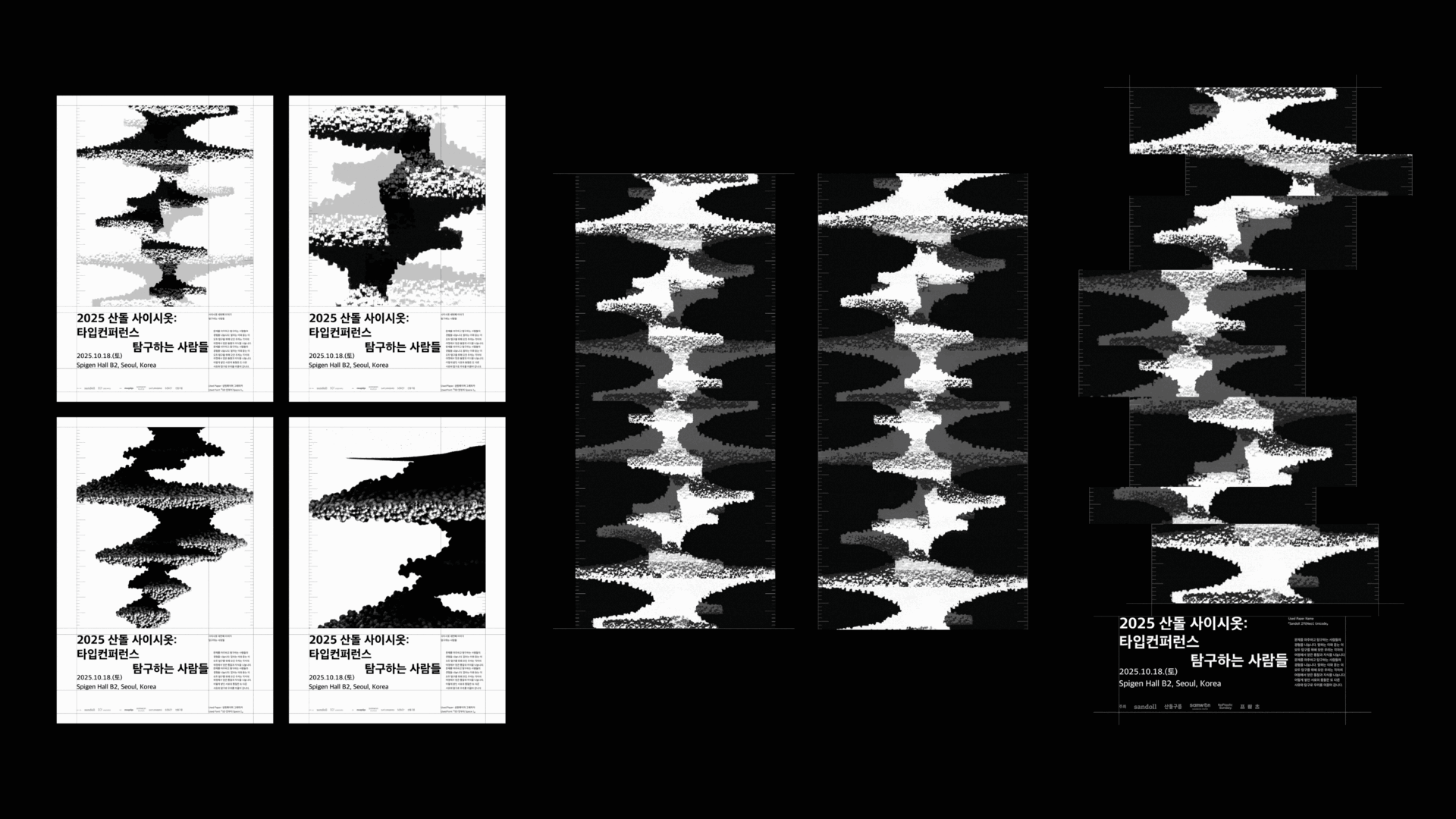
Then I started drawing a lot of question marks—guided by two simple principles.
The first was deconstructing the question mark. I see inquiry not as something singular, but as a process made up of many interconnected pieces. I broke the question mark down as much as possible, then layered those fragments like patterns—sometimes assembling them into patchwork-like compositions.
The second was drawing something that looks like a question mark, but maybe isn’t. To explore a wider range of forms, I had to move beyond the familiar structure—a large curved body paired with a small dot. Along the way, I found myself in moments of hesitation: Is this still a question mark, or not? That uncertainty led to a bigger question—does a question mark really have to look like a question mark? Paradoxically, that ambiguity added visual interest, and felt even closer to the idea of inquiry itself.
And that’s how the visuals you saw at the Saisiot venue came together. Do these question marks feel like they capture the image of inquiry to you?
Applying the Visual System
With the visuals defined, the next question was how to present them effectively. Since these graphics would appear consistently across the event, applying them thoughtfully and in the right places was essential.
For large-scale elements within the venue, we limited the color palette to three tones. In some cases, only fragmented parts of the question mark were shown, allowing us to control emphasis and rhythm rather than presenting the full form every time.
We also added small moments of delight to touchpoints like the program book and wristbands. During on-site registration, participants selected their questioner type, and based on the result, stickers were applied to create a personalized program book cover. The wristbands worked the same way—at a glance, you could tell which type each participant belonged to.
The motion graphics played during breaks were designed to be more explanatory. Phrases like “IT ALL BEGINS WITH A QUESTION” were brought to the forefront, alongside illustrations of various actions commonly associated with inquiry. Because the question mark itself is already a strong symbol, we chose to communicate more clearly and directly in these moments—adding a layer of guidance to balance the abstraction.
Another Inquiry, the 「SD Choyang」 Specimen Book
The first session of Saisiot was a lecture on Sandoll’s new font, 「SD Choyang」. So that participants could revisit the content after the event, the 「SD Choyang」 specimen was included in the check-in kit and distributed together.
「SD Choyang」 is a font that reinterprets in a contemporary way the Hangul minburi metal type used in Joseonmal Keunsajeon, published by Eulyu Munhwasa in the early 1900s. To reveal its roots, we adopted the dictionary format. Just as Joseonmal Keunsajeon gathered the Korean language that was disappearing at the time, we decided to collect native Korean words that are gradually fading away.
Among native Korean words, we focused on those related to “the movement or intensity of the sun.” “Choyang (初陽)” refers to the sunlight that rises in the morning. The name was chosen in consideration of the historical significance of Joseonmal Keunsajeon and the warm impression of the font. To express this concept, the words were arranged not in alphabetical order, but chronologically—from the moment of choyang at sunrise through sunset and into dawn. We also incorporated devices to demonstrate differences in legibility depending on the passage of time and background conditions. The cover and sleeve visually depict the moment the sun rises: if the book itself represents the shining sun, the sleeve is intended to resemble rays of light, so that lifting the book evokes the scene of the sun rising.
Recent font trends tend to favor narrower widths to allow large amounts of information to be read within a short time. In contrast, 「SD Choyang」 gives an impression closer to a standard, balanced style. This comes from the fundamental structure of 「SD Choyang」 itself. To illustrate that each character exists within a 1,000×1,000 unit space, the specimen format was also set as a perfect square. Personally, I find the combination of Latin and Hangul in 「SD Choyang」 particularly beautiful, so the layout was designed to include as many pages as possible that present Hangul and English together.